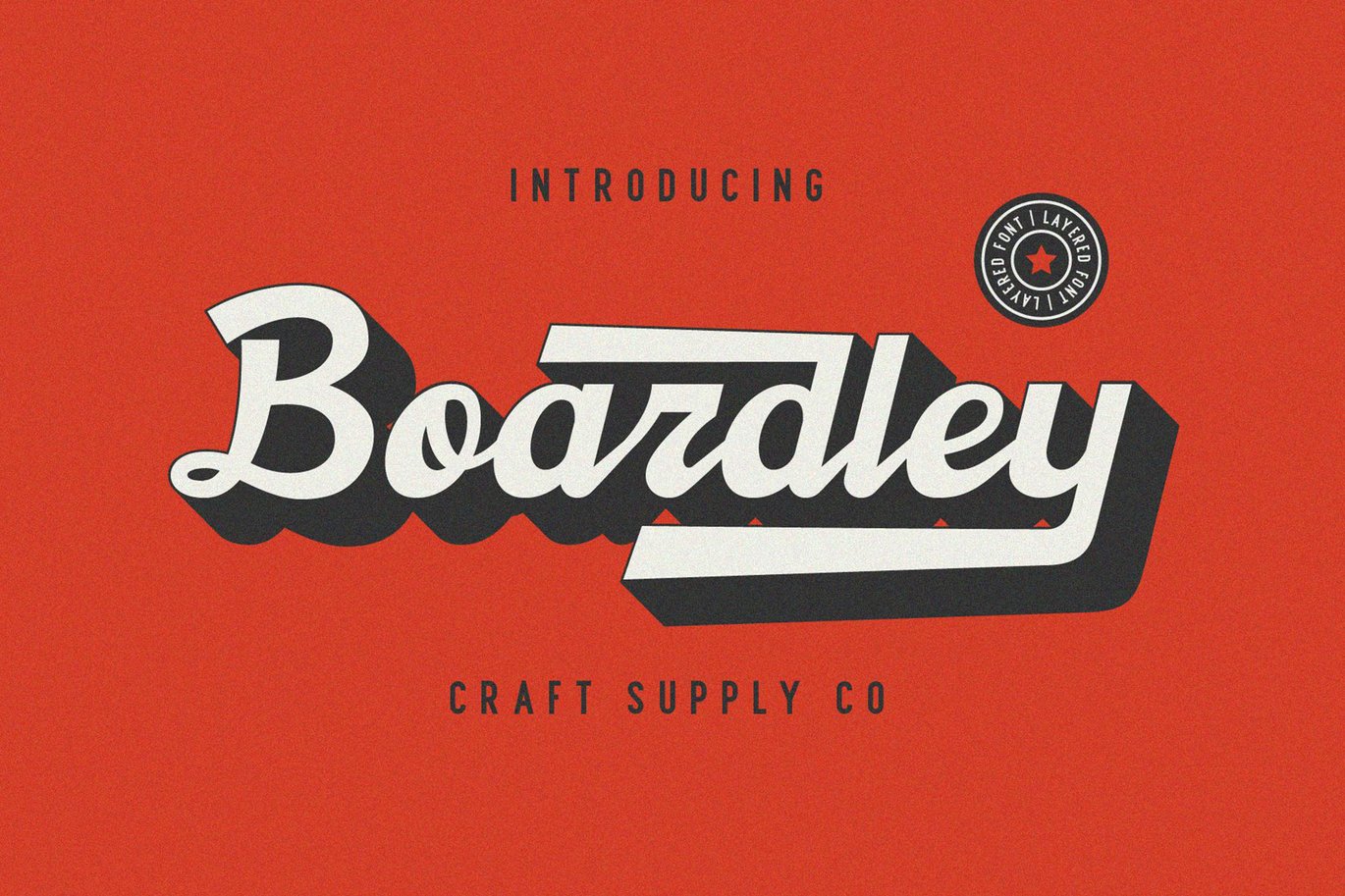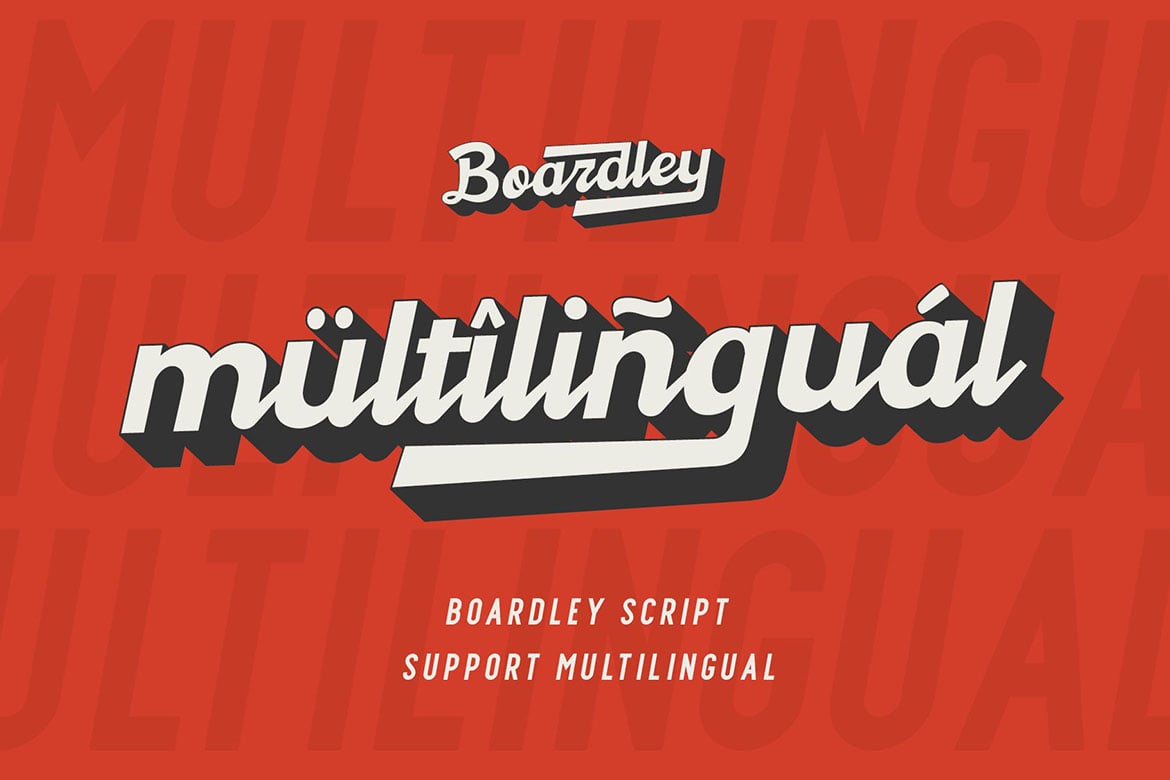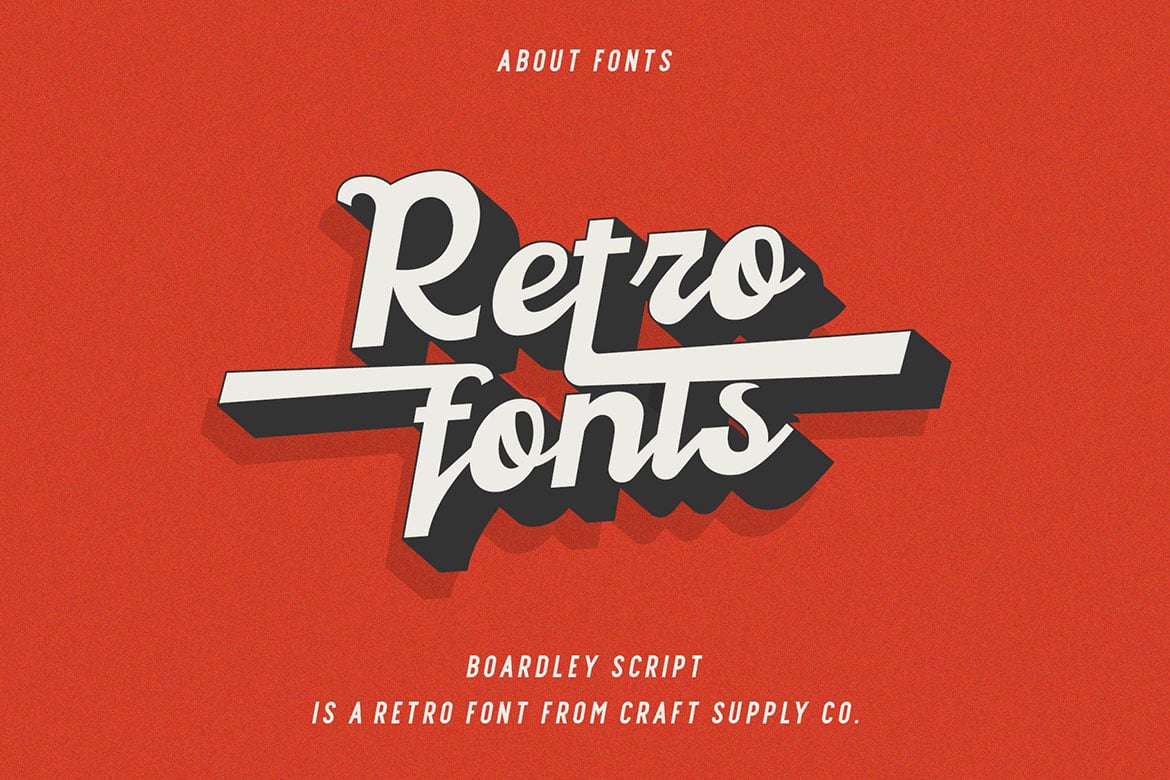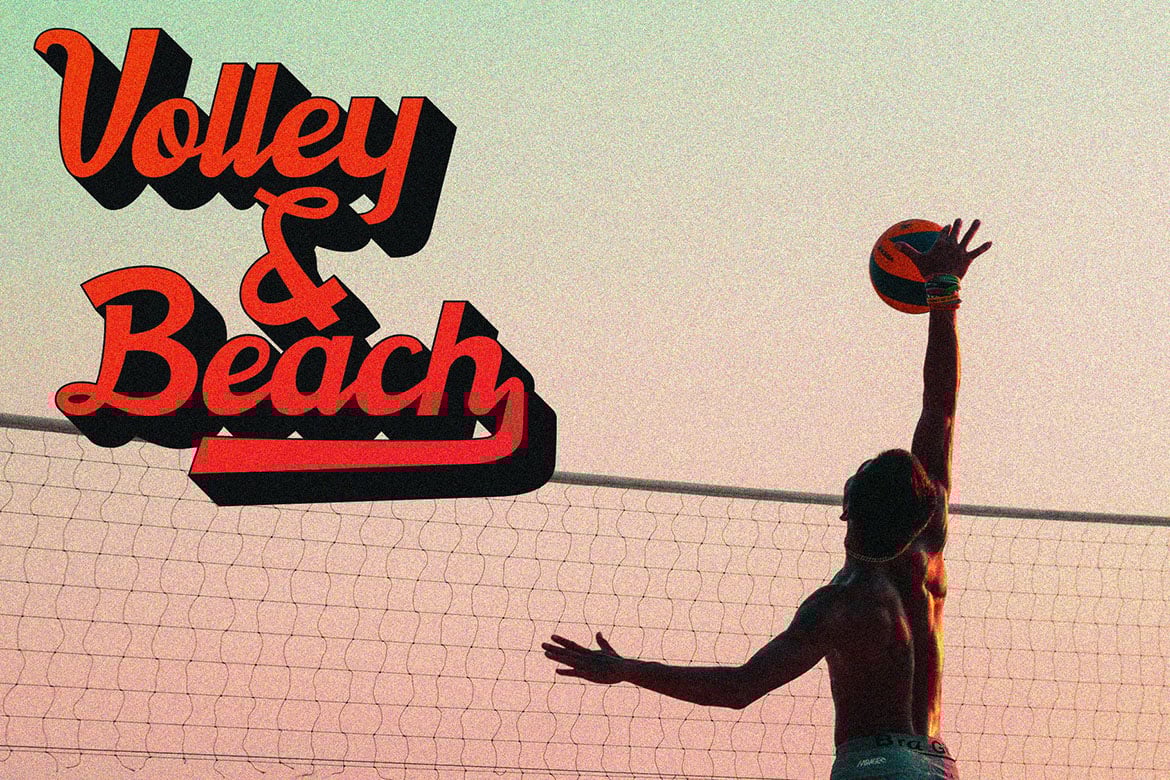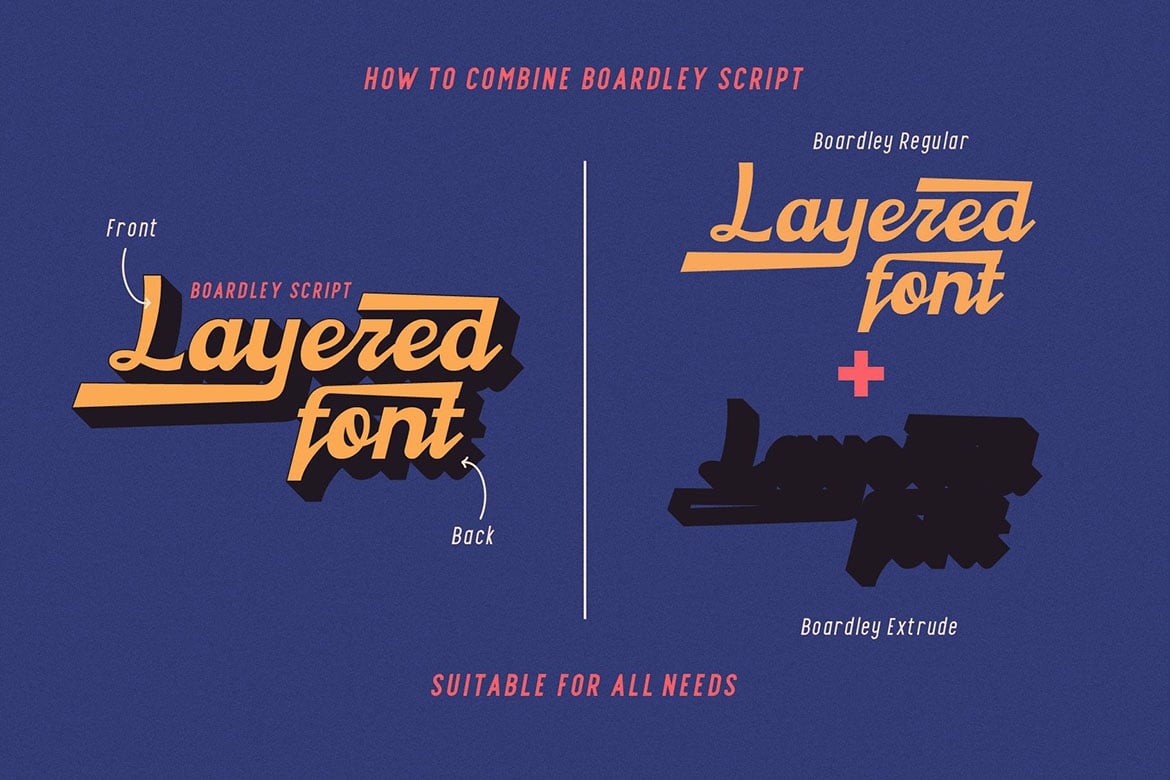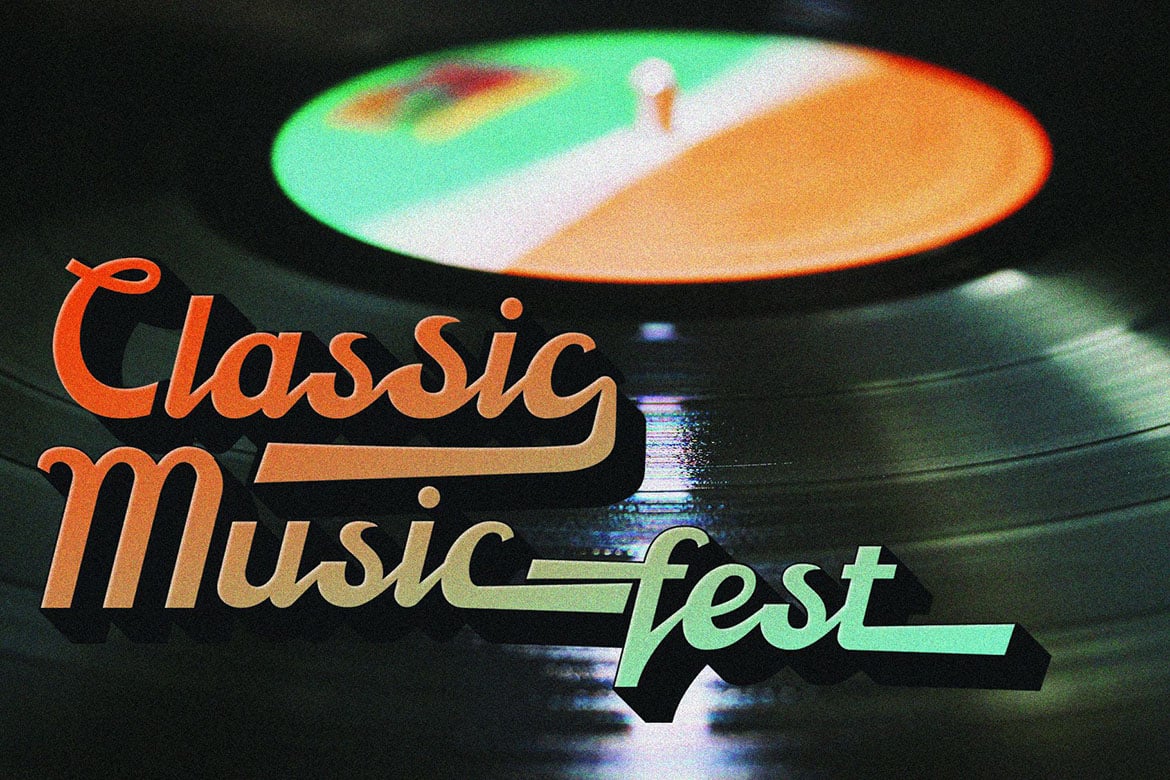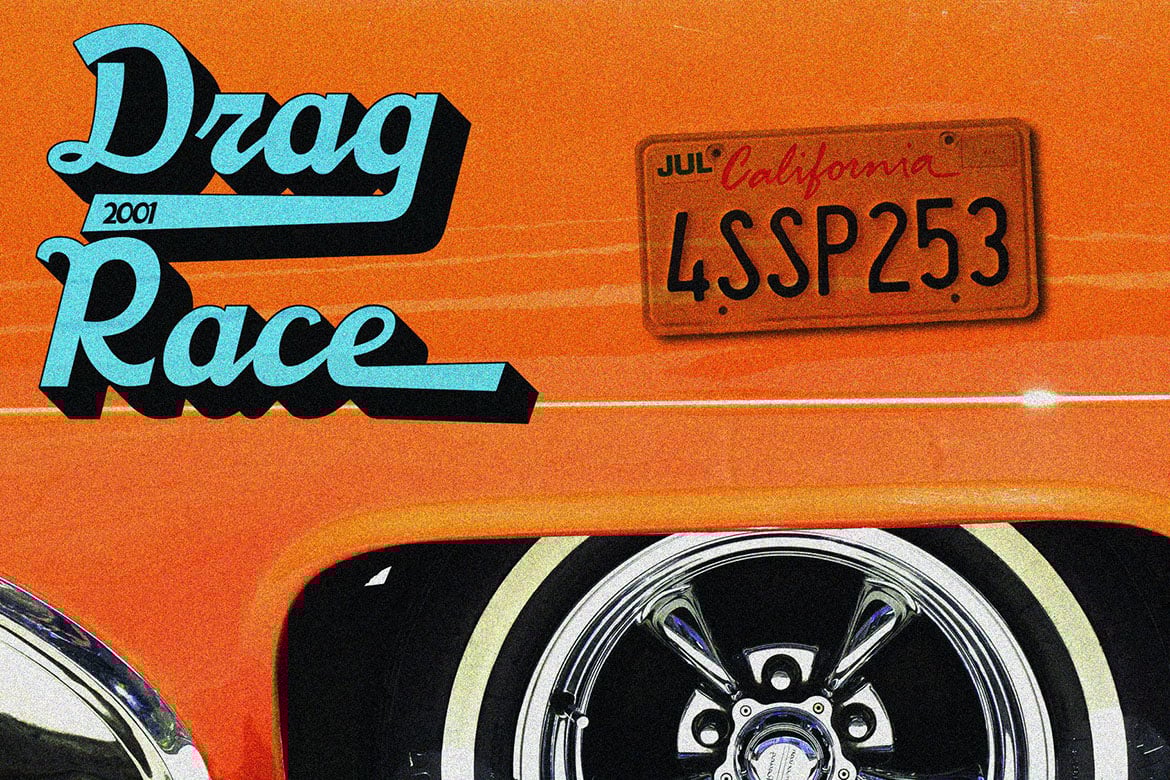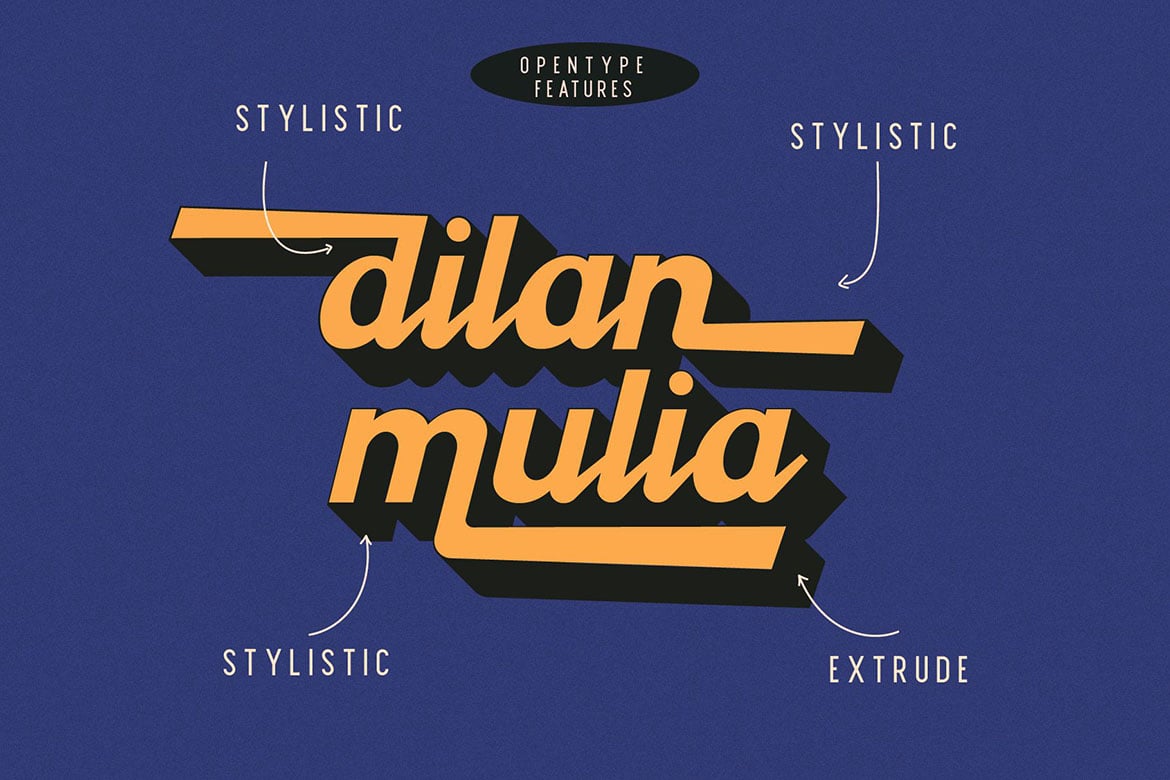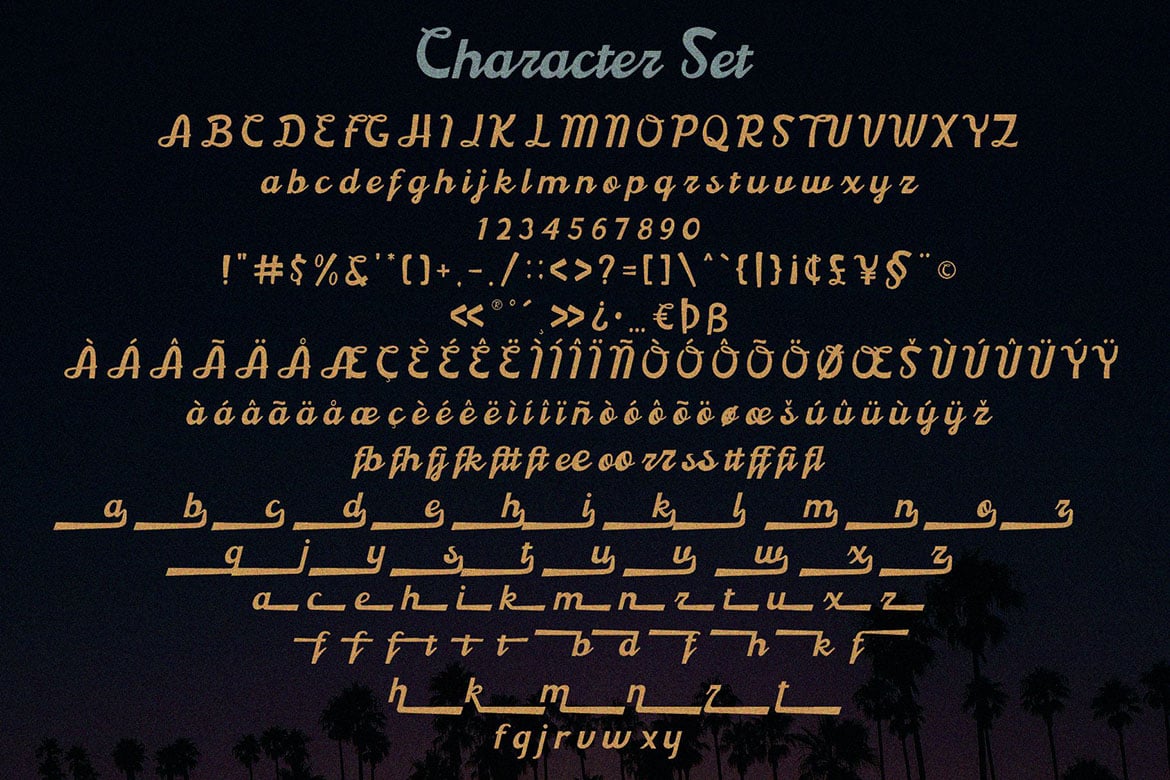
Boardley Script – Layered Font
Introducing New Font : Boardley Script – Layered Fonts
Boardley Script is a script-style display font in two layers, Boardley Script was the result of an exploration of mid-century American and European bold script lettering for advertising. is an attractive contemporary typeface drawn from scratch with brand-new, more vigorous detailing — and layerable variations for chromatic use.
Boardley Script is suitable for Logo, greeting cards, quotes, posters, branding, name card, stationary, design title, blog header, art quote, typography art, modern envelope lettering or book design.
Boardley Script also suitable for happening style like handdrawn design or watercolor design theme, craft design, any DIY project, book title, wedding font, pop vintage design, or any purpose to make our art/design project look pretty and trendy.